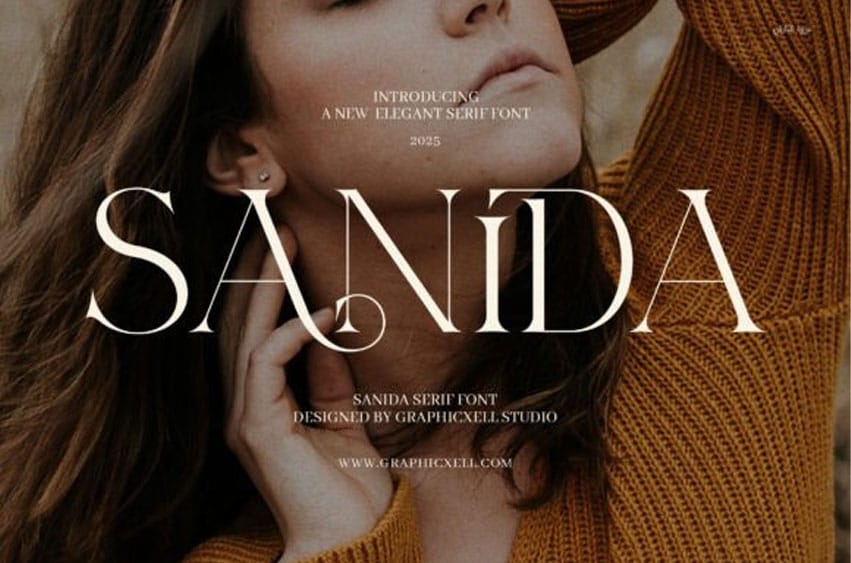
Sanida Font Elegant Serif blends classic sophistication with a sleek modern edge. Featuring refined serifs, smooth lines, and stylish ligatures, it’s perfect for luxury branding, editorial layouts, packaging, and more.
Ideal for fashion, lifestyle, and high-end design, Sanida offers visual impact and elegance in both print and digital formats. Elevate your projects with a font that communicates style, quality, and distinction.